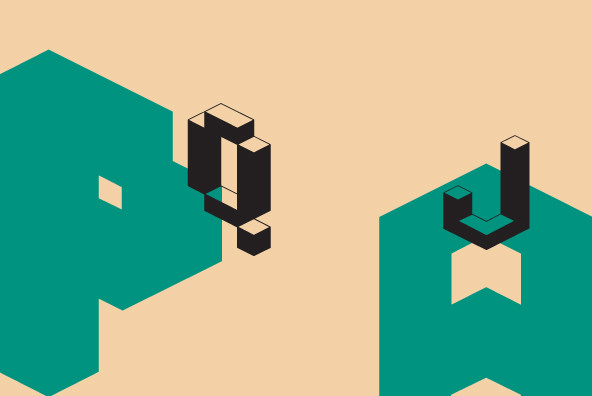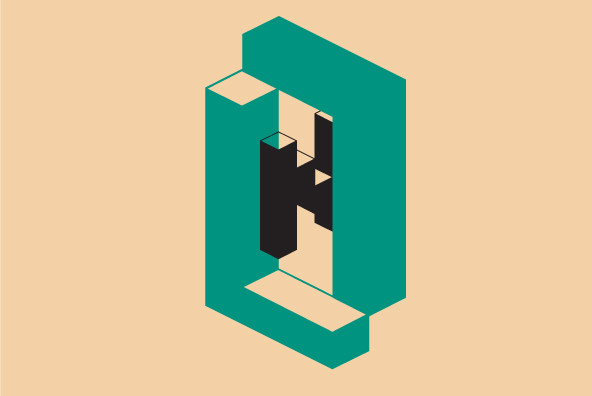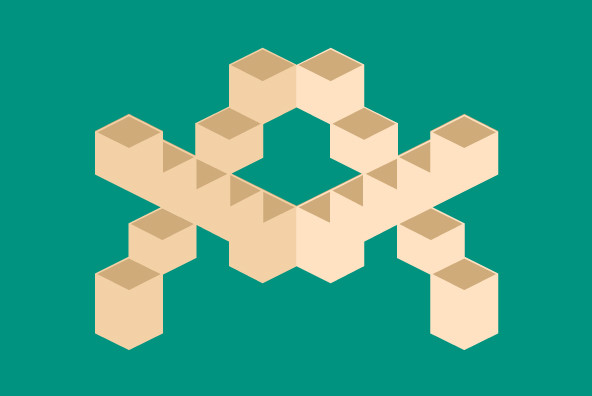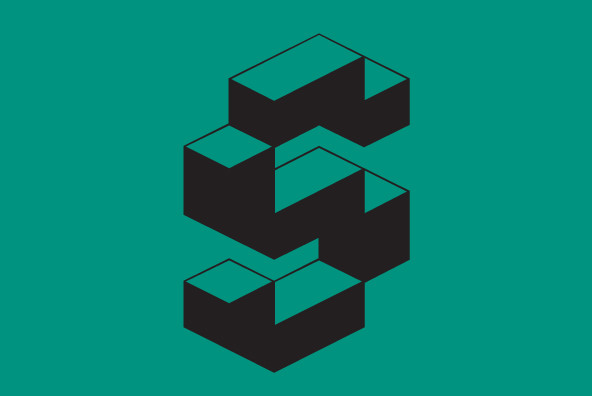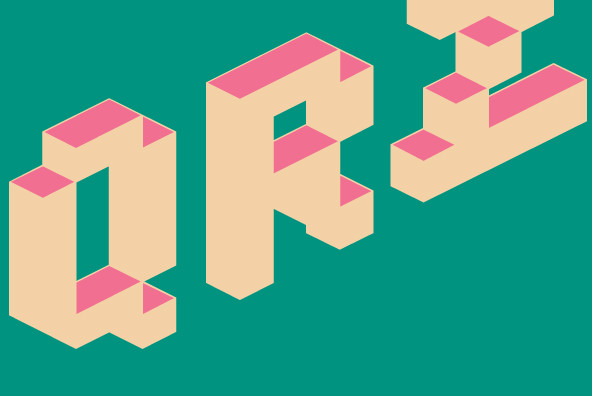
TicTacToe is a two-tone font with axiometric proportions. It is all capitals, but upper and lower case characters differ to achieve more versatile results. It has two variants, open and all closed variant in back, so it leaves no holes behind it....
TicTacToe is a two-tone font with axiometric proportions. It is all capitals, but upper and lower case characters differ to achieve more versatile results. It has two variants, open and all closed variant in back, so it leaves no holes behind it.